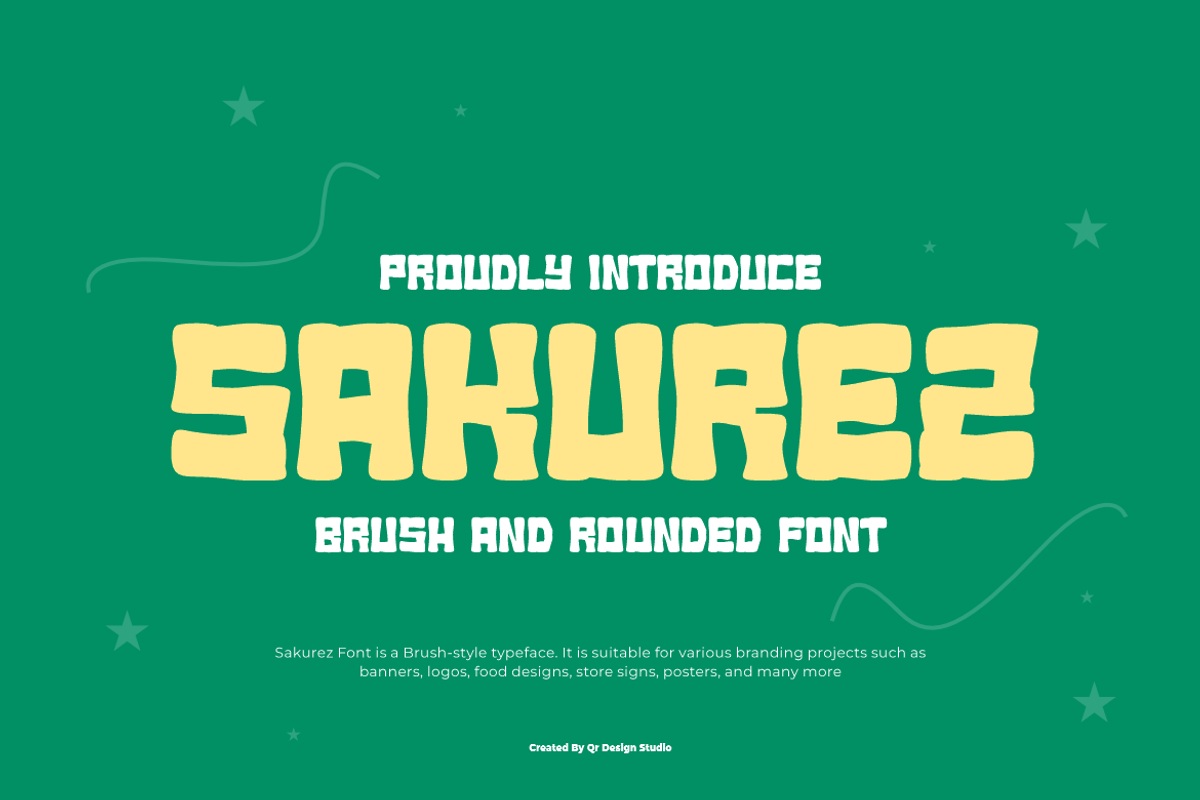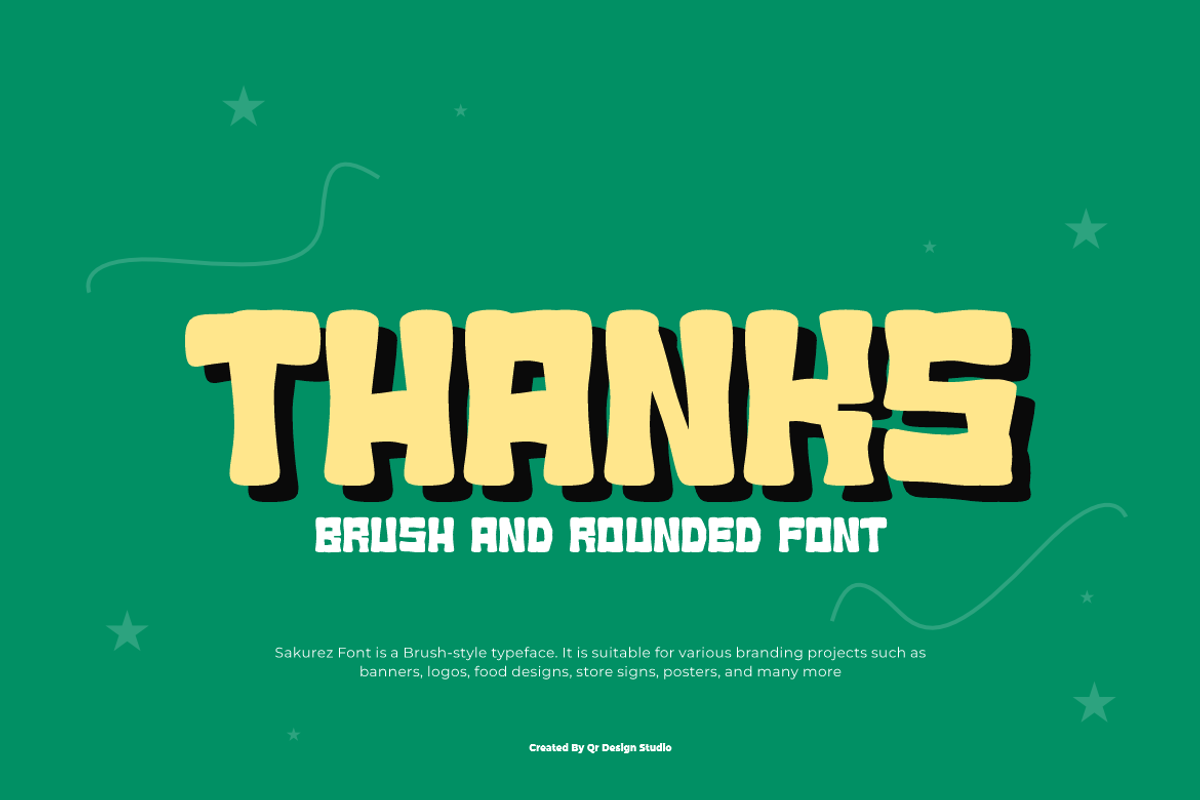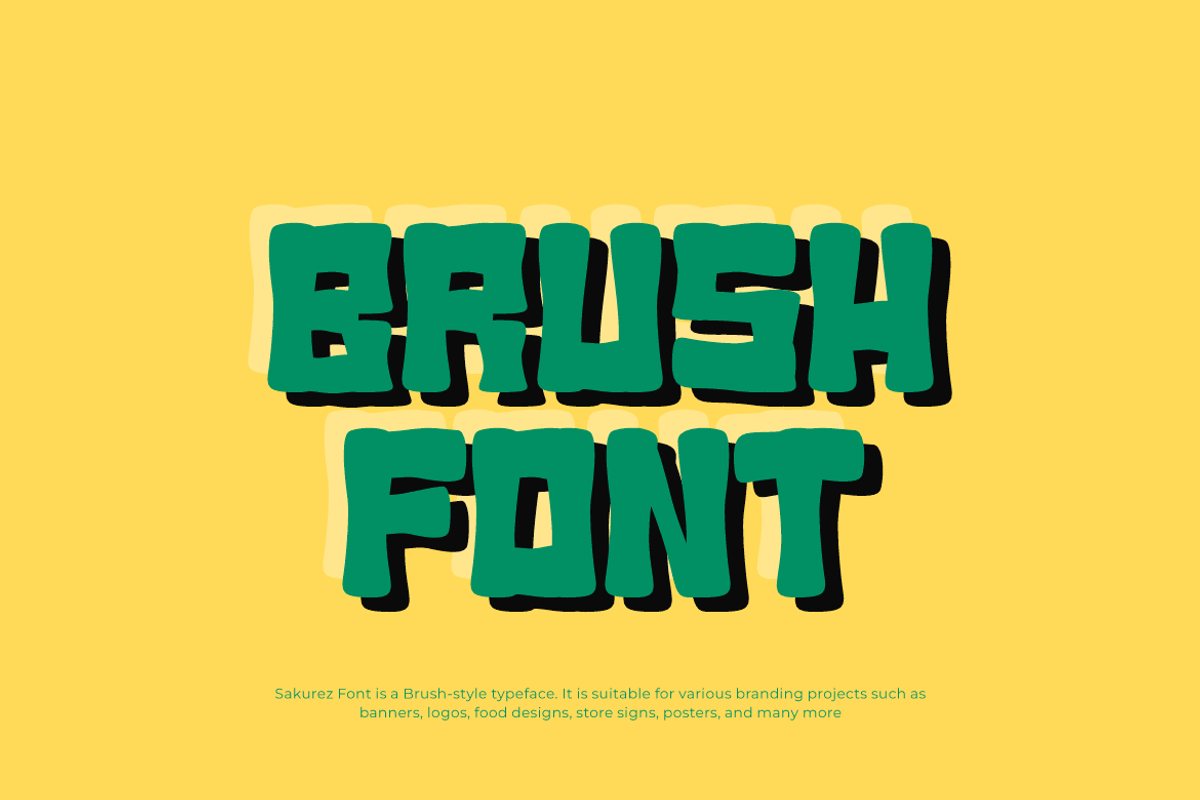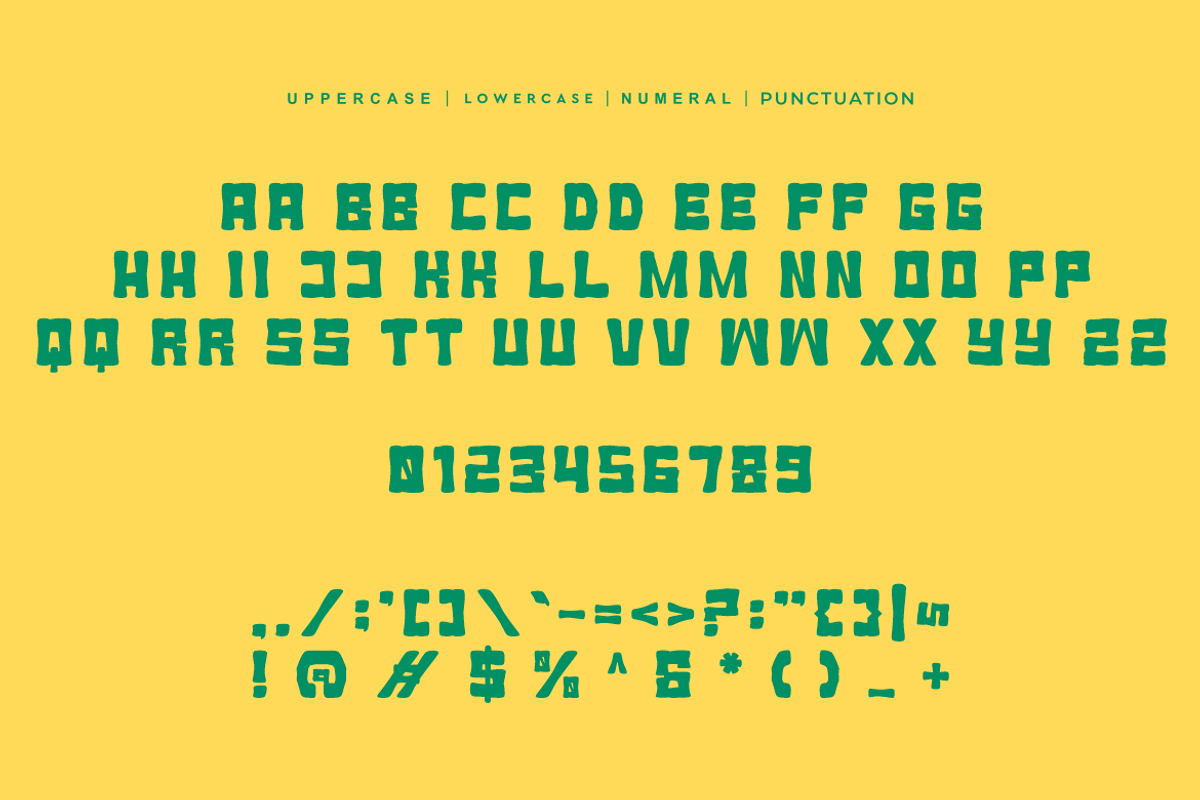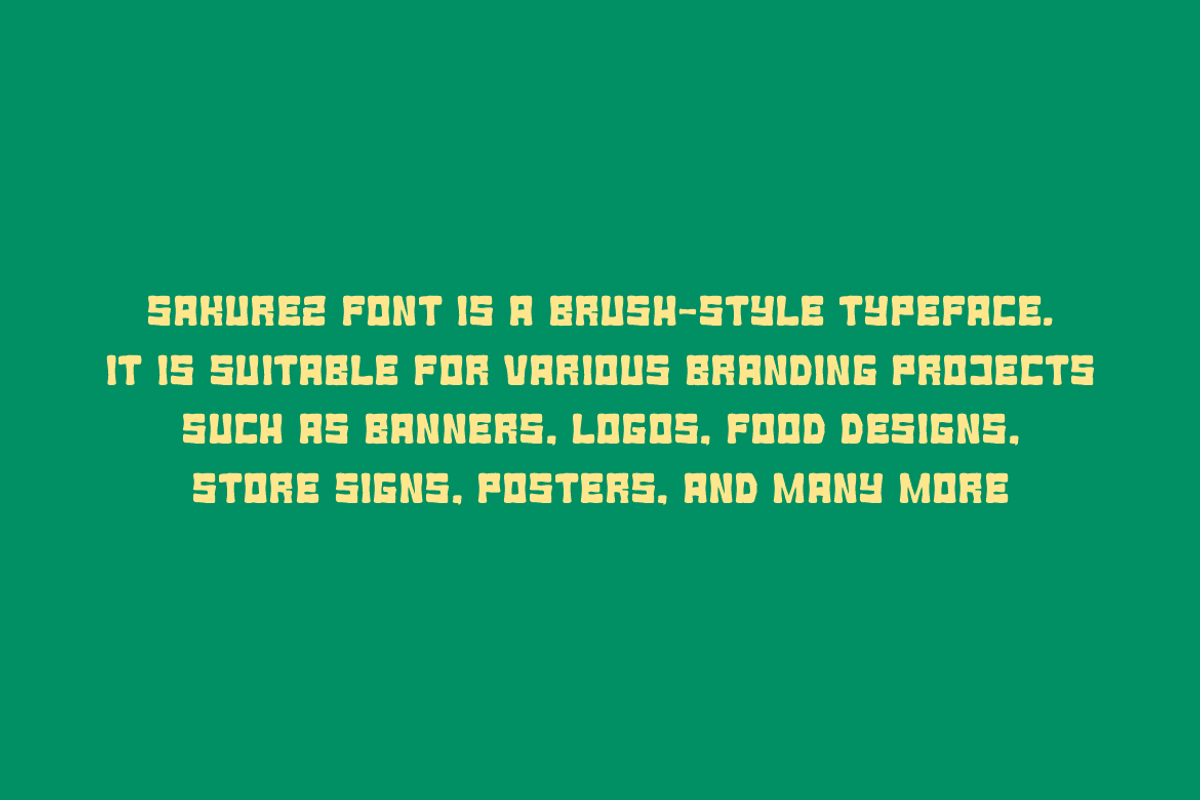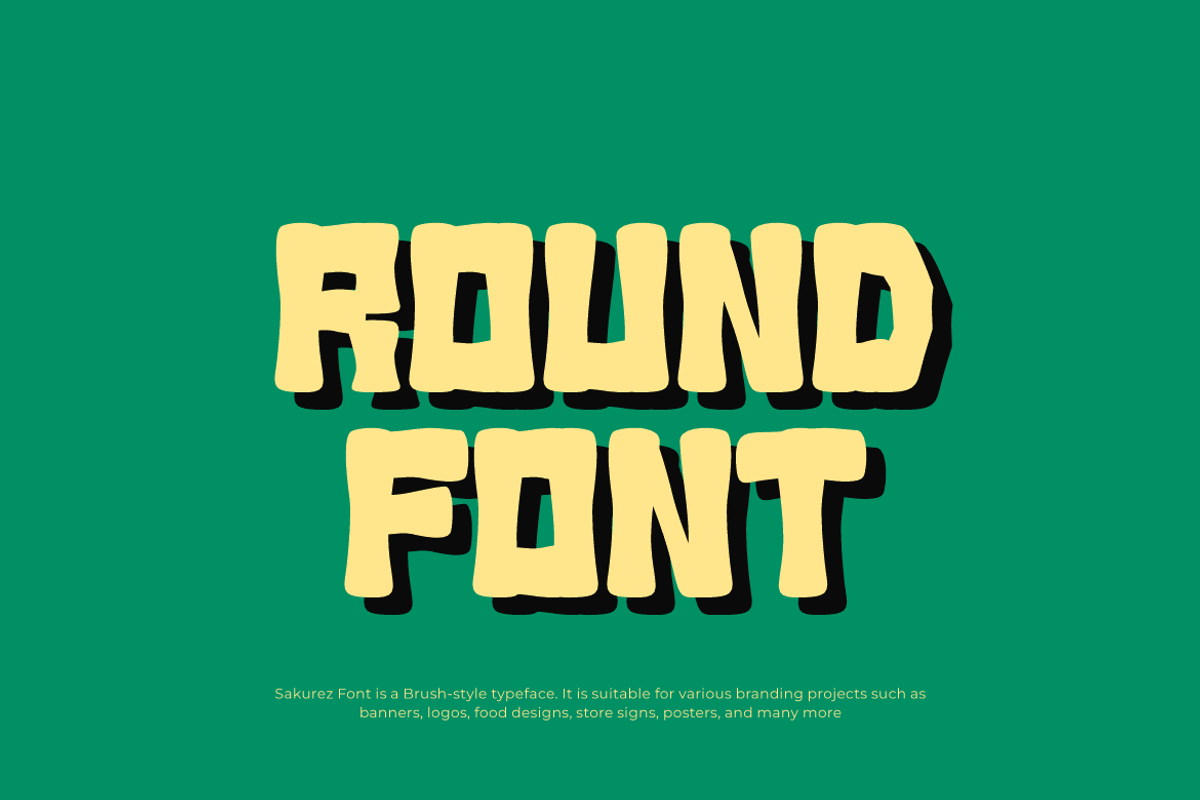
Sakurez - Round Brush Font
Sakurez Font is a brush and authentic display typeface. It’s perfect for various branding projects such as logos, poster designs, and more. This font stands out beautifully in a wide range of contexts.